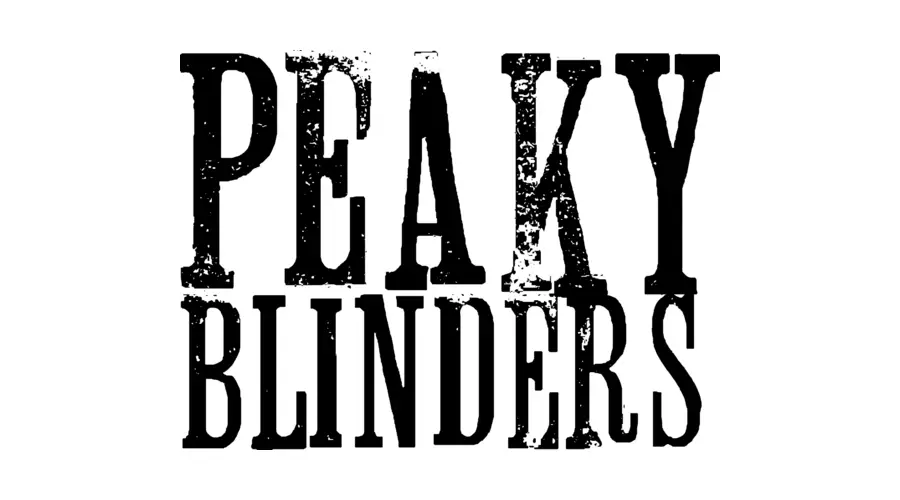
The Peaky Blinders font is a distinctive typeface that has become synonymous with the gritty, vintage aesthetic of the popular British crime drama series. The show, set in post-World War I Birmingham, follows the Shelby crime family and their rise to power. The font used in the logo and promotional materials plays a crucial role in capturing the show’s dark, historical, and edgy vibe.
If you’re looking for fonts similar to the Peaky Blinders font, here are some great alternatives:
Roman Wood Type JNL by Jeff Levine – The original font used in the logo.
Alycidon Cond by Niall Kitching – A close alternative with a condensed, vintage style.
These fonts share the same bold, serif design and historical feel, making them suitable for projects inspired by the Peaky Blinders aesthetic.